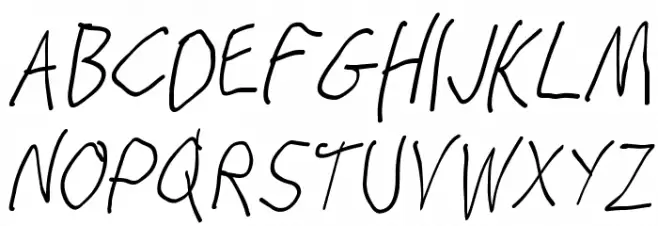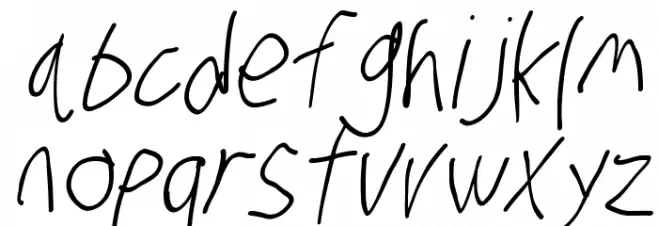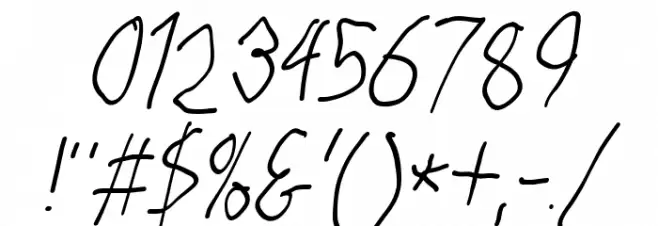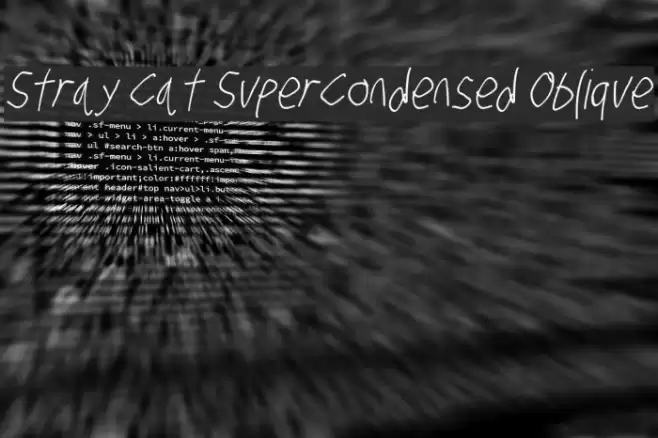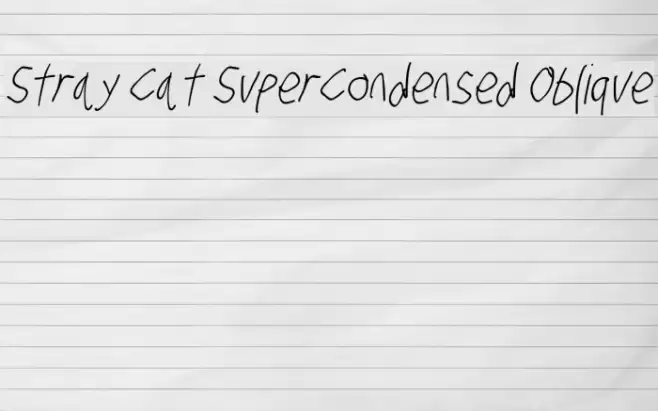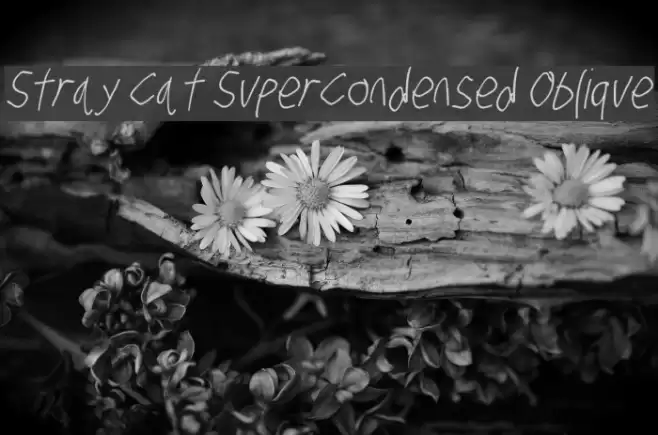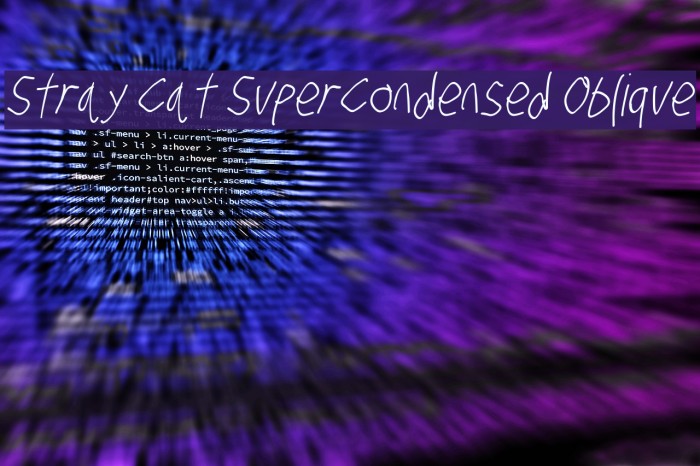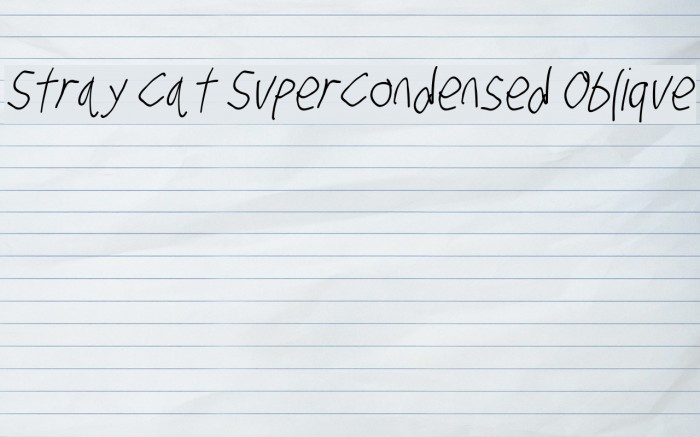
Stray Cat SuperCondensed Oblique
This font features a playful, handwritten style with a casual and informal appearance. The letters are slightly slanted, giving an oblique effect that adds to its dynamic and energetic feel. The strokes are uneven, mimicking a natural hand-drawn look, which adds a personal touch to the text. The characters are condensed, allowing for more text to fit in a smaller space without losing readability. This font is ideal for projects that require a friendly and approachable tone, such as children's books, personal blogs, or creative branding. The unique style makes it stand out, ensuring that any message conveyed with this font captures attention.
A playful, handwritten font with an oblique and condensed style.
- Proposed Projects: Ideal for children's books, personal blogs, creative branding, and informal invitations.
- Width: Condensed
- Overall Style: Casual and Energetic
- Use Case: Headlines, Informal Text, Creative Projects